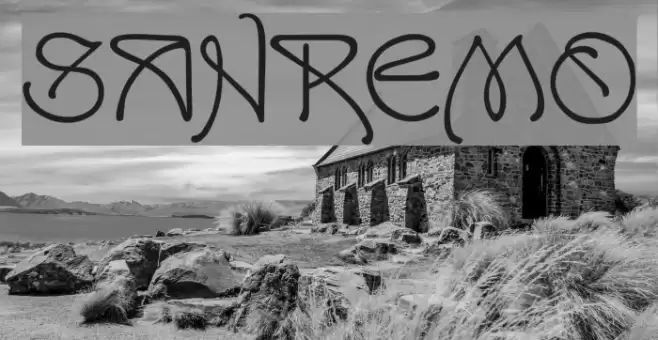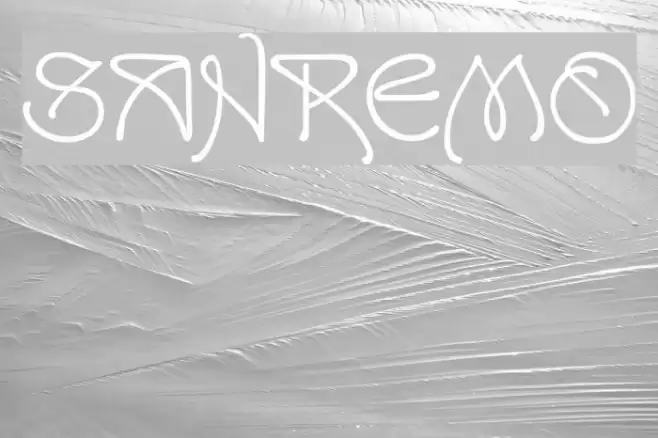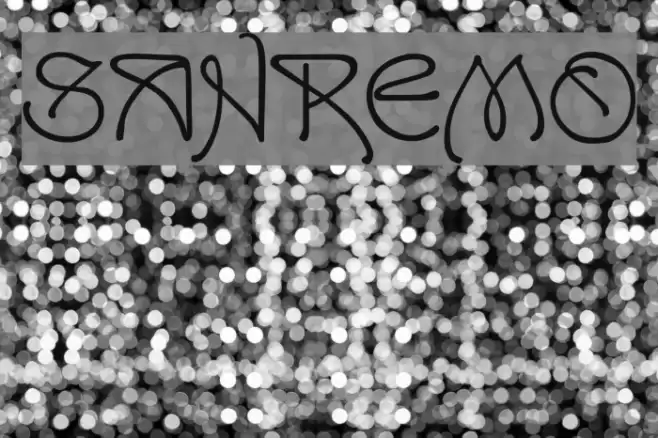
SanRemo Font
SanRemo Description
This font features a unique and artistic design, characterized by its intricate and decorative letterforms. The uppercase letters exhibit a blend of sharp angles and smooth curves, giving them a dynamic and elegant appearance. The lowercase letters maintain a consistent style, with a slightly more subdued flair. The numerals are bold and easily distinguishable, complementing the overall aesthetic. Special characters are creatively designed, adding to the font's distinctiveness. The font's style is reminiscent of calligraphic influences, making it suitable for projects that require a touch of sophistication and creativity.
An artistic and decorative font with intricate letterforms and a calligraphic influence from Uncategorized fonts.
- Proposed Projects: Ideal for wedding invitations, artistic posters, branding materials, and any project requiring a sophisticated and creative touch.
- Use Case: Logos, Headlines, Invitations